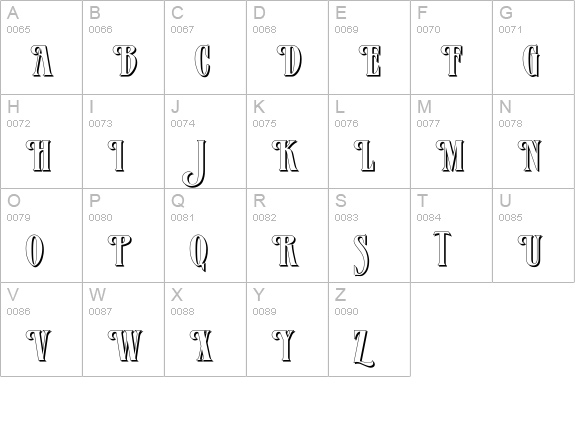
VerveShadow Font Details
VerveShadow is a unique and elegant font that exudes sophistication and modernity. Its bold yet delicate strokes make it perfect for adding a touch of class to any design project. The sharp edges and intricate details of VerveShadow give it a distinct look that sets it apart from other fonts. What makes VerveShadow even more appealing is that it is available for free download at FontsMarket.com. This means that designers and creatives can easily access this stunning font without any cost, making it a valuable addition to their font collection. Whether you're working on a branding project, a poster design, or a website layout, VerveShadow is sure to make a statement and elevate your work to the next level. Embrace the beauty and versatility of VerveShadow and see how it can bring your designs to life.